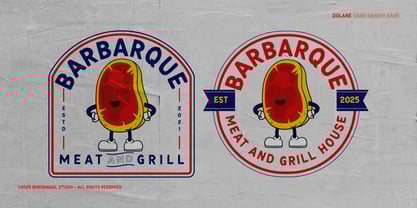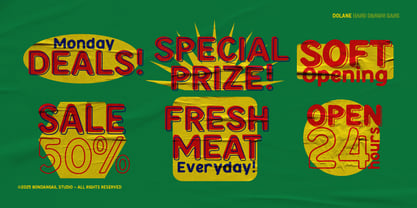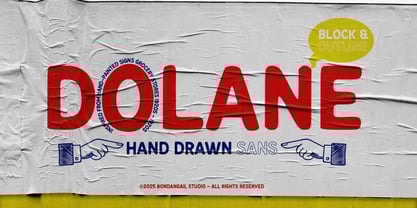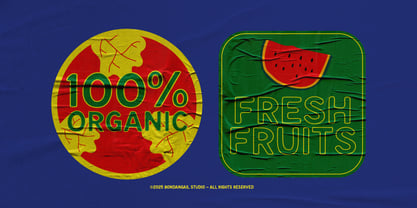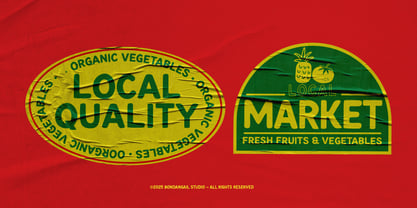
Dolane
La familia tipográfica Dolane fue diseñada por Wahyu Eka Prasetya, Bondan Gail Saputro y publicada por BondanGail. Dolane contiene 2 estilos y opciones de paquete familiar.
Dolane inspiration from the charming hand-painted signs that adorned grocery stores between the 1920s and 1970s, this font is now offered in a digital format that captures the essence of those unique letters. Check out the thumbnails to explore the creative possibilities it offers.
Dolane features a harmonious pairing of classic block and outline fonts, making it ideal for both vintage-inspired and modern advertising, logo, branding initiatives and more.
Dolane Features:
• 2 Weights : Regular & Outline
• Uppercase & Lowercase
• Numbers & Punctuation
• Multilingual Support